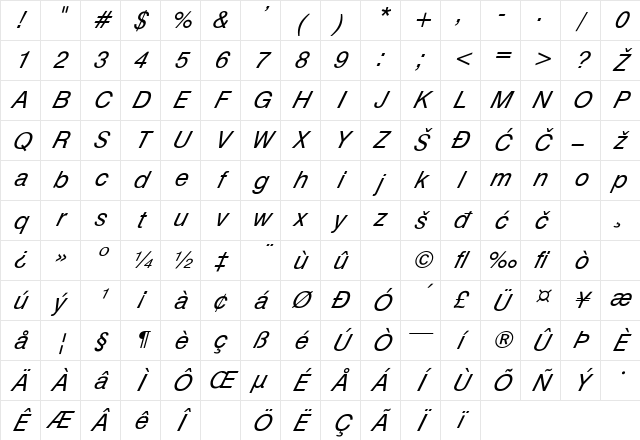
Complete YU L Swiss Italic glyph index. Displaying only characters natively supported by YU L Swiss Italic font.
YU L Swiss is a composed and adaptable typeface that performs quietly and consistently across a wide range of design contexts. The slanted form adds forward momentum and visual energy.
Pro Tip: Use YU L Swiss for emphasis, pull quotes, and subheadings where its slanted energy can add rhythm to the layout.